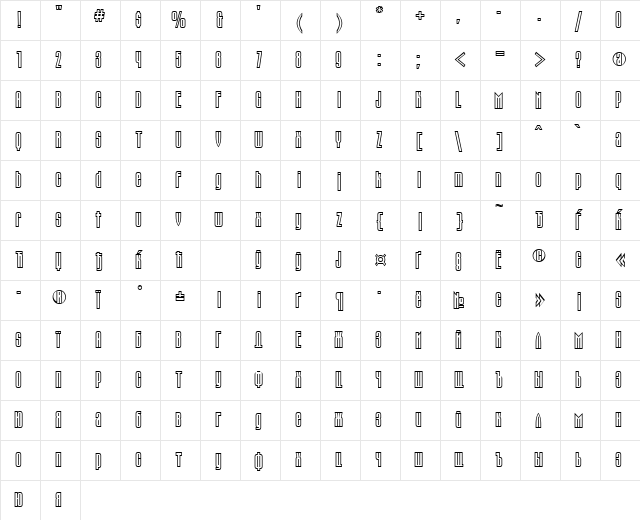
TauernCTT Regular
Design Context for TauernCTT Typeface
TauernCTT is a composed and adaptable typeface that performs quietly and consistently across a wide range of design contexts.